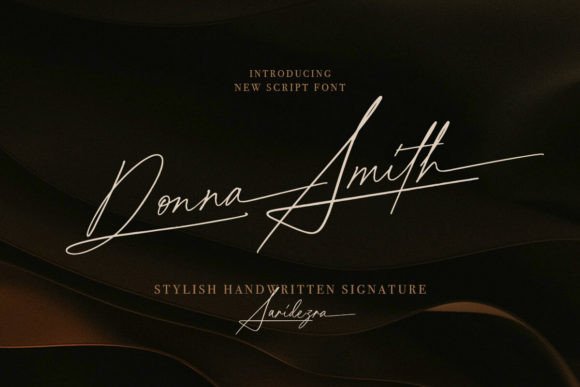
Introducing Donna Smith Font, the ultimate choice for adding a touch of elegance and charm to your creative projects. This dazzling script font, created by the talented saridezra, is the perfect addition to your font library, whether you're designing wedding invitations, crafting stunning logos, or creating captivating videos.
With its impeccable craftsmanship and intricate details, Donna Smith Font stands out from the crowd. It exudes a sense of sophistication and grace, making it the ideal choice for those seeking to elevate their designs to new heights.
When it comes to wedding videos, Donna Smith Font truly shines. Its flowing curves and graceful strokes effortlessly capture the essence of romance, making it the best font for creating breathtaking titles, captions, and love-filled messages. Let your videos tell a story of eternal love with the help of this enchanting font.
Not limited to wedding videos alone, Donna Smith Font is versatile and adaptable to various design projects. Its timeless elegance and versatility make it equally suitable for creating stunning invitations that leave a lasting impression on your guests. From save-the-date cards to RSVPs, this font will infuse a touch of magic into every detail of your wedding stationery.
But the magic of Donna Smith Font doesn't end there. This font adds a sense of professionalism and refinement to your brand logos and corporate designs. Impress your clients and customers with a logo that exudes sophistication and class. With Donna Smith Font, your brand will stand out from the competition, leaving a lasting impact on your target audience.
What sets Donna Smith Font apart from others is its ability to evoke emotions and create a connection with your audience. Its timeless beauty has the power to captivate and engage viewers, leaving them with a lasting impression. Whether you're designing for a wedding, a special event, or a personal project, this font will help you create designs that truly resonate with your audience.
In conclusion, Donna Smith Font is more than just a font – it's a work of art that breathes life into your creations. Its meticulously crafted details, versatility, and emotional appeal make it the perfect choice for anyone looking to add a touch of elegance and charm to their designs. Download Donna Smith Font today and unlock a world of endless possibilities for your creative journey.